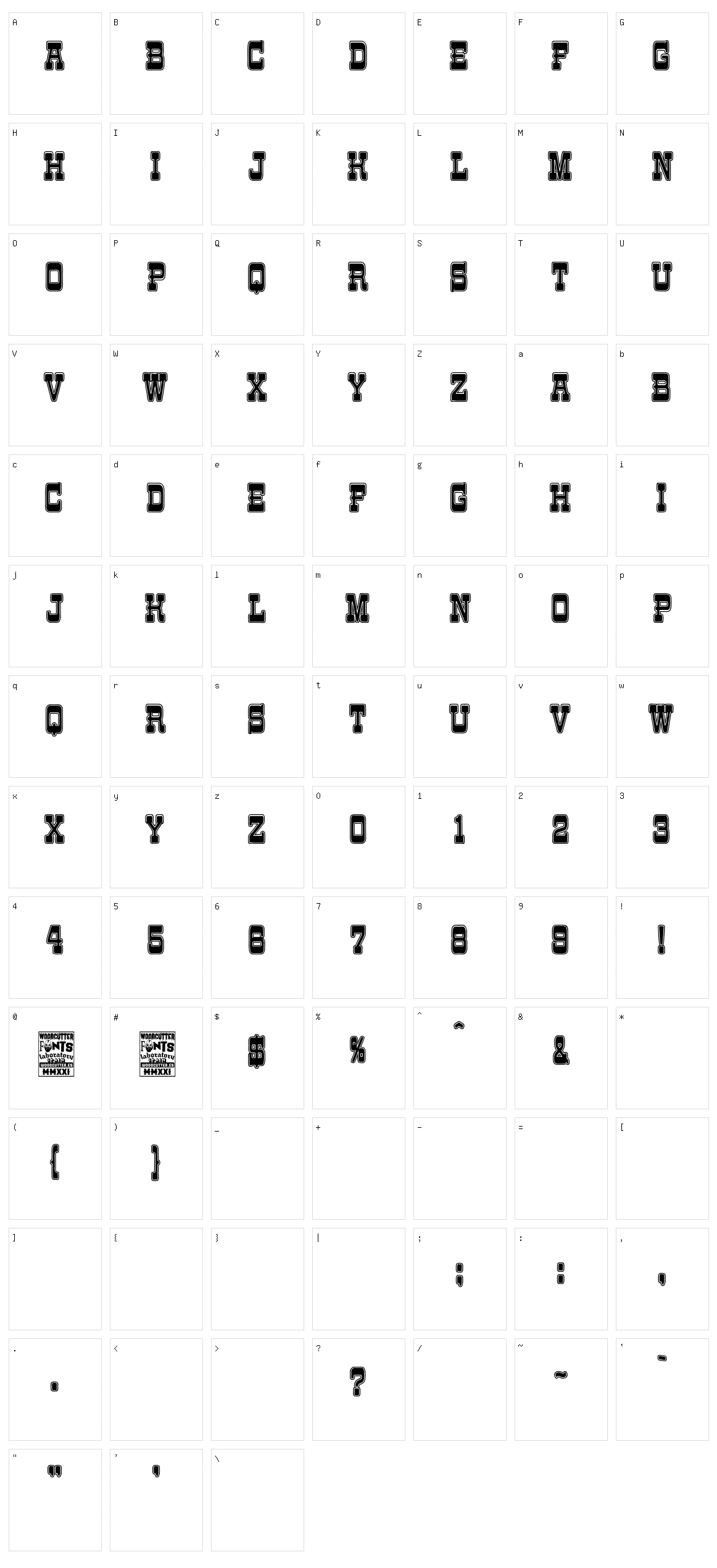
The free font CafeterÃa España is carefully designed by Woodcutter, showcasing a thoughtful balance of creativity and usability and falls under the Western font style. When you download the ZIP file, it contains only 152.14 KB of font files, making it lightweight and quick to download. Please review the license details below to understand permitted usage and distribution rights. If license information is not available, we recommend using this font for personal projects only or contacting the author directly for commercial usage permissions.